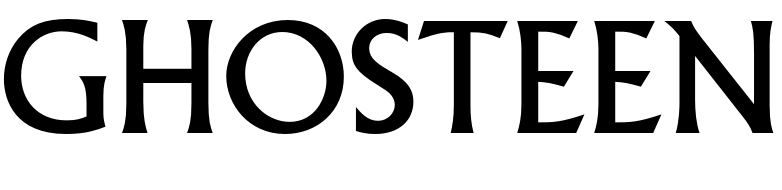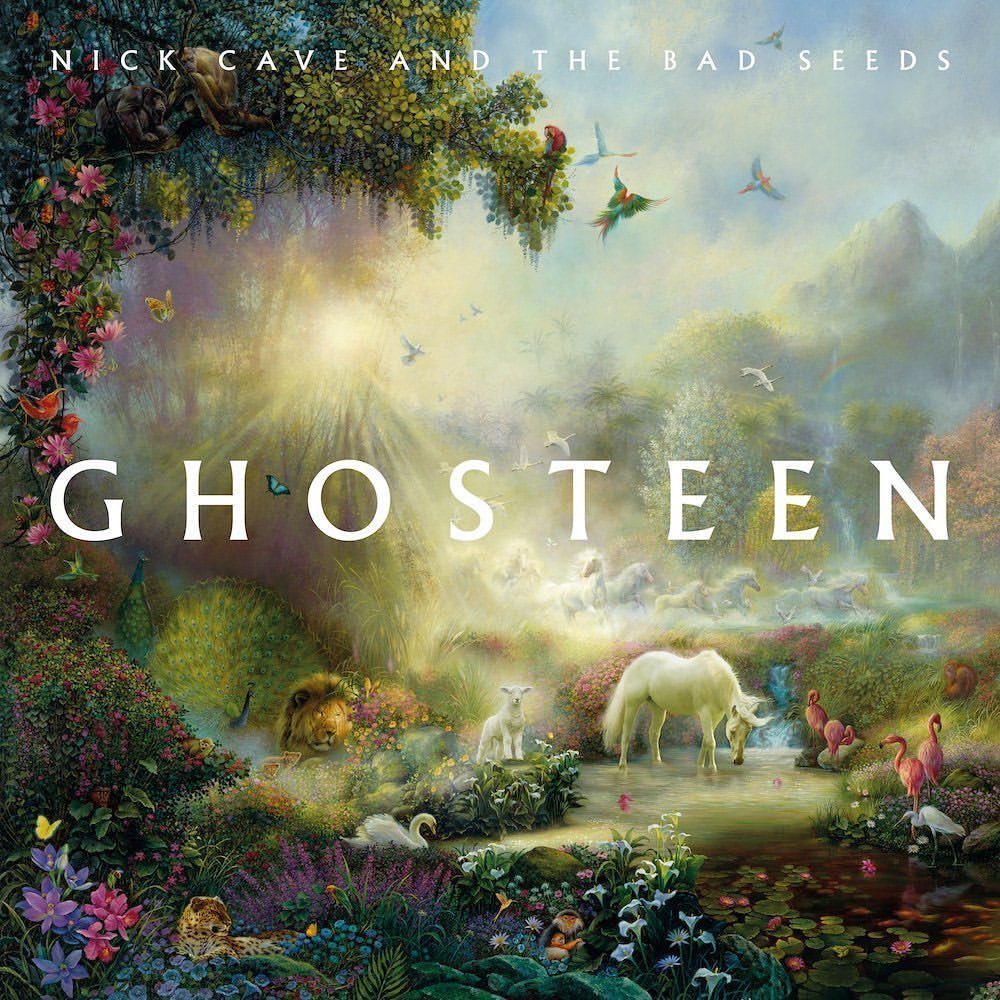
Ghosteen Font
Fonts in UseGhosteen is an album by Nick Cave and the Bad Seeds, released in 2019. It is a hauntingly beautiful and deeply emotional work that explores themes of grief, loss, and transcendence.
The artwork of the album showcases a glyphic font named Albertus, created by Berthold Wolpe and released by Monotype in 1936.